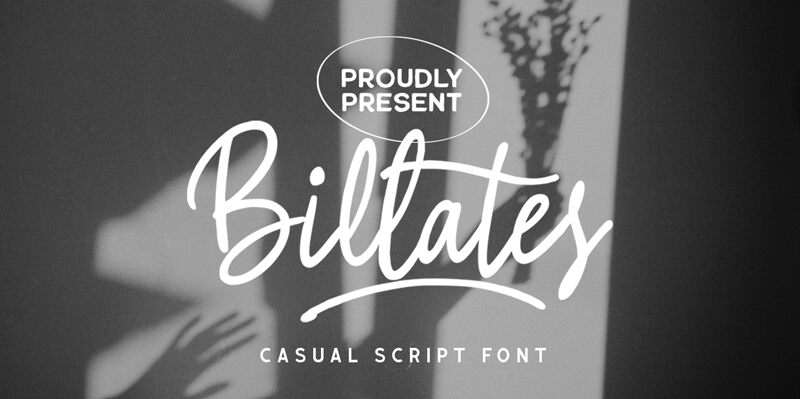
The Billates font by Letterhend Studio is a free handwritten font with a smooth flow and modern feel. This expressive style has a dynamic appearance that seamlessly integrates casual elegance with informal charm. The cohesive design of this typeface makes it perfect for contemporary applications that require a personal and approachable touch.
Its versatile nature covers both print and digital designs such as branding, logo design, signature creation, posters, websites, product packaging, apparel prints, social media content, cards, labels, or any other project requiring an authentic touch.